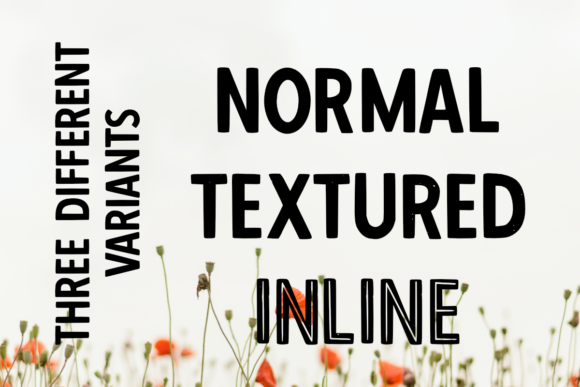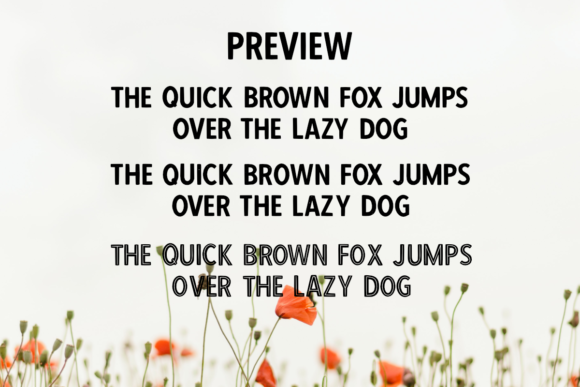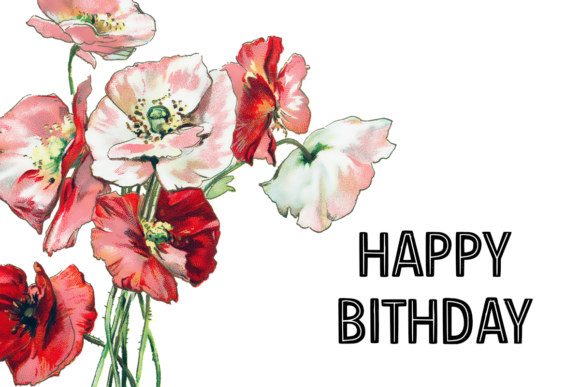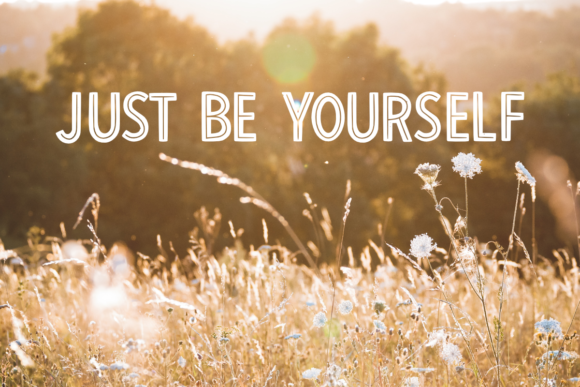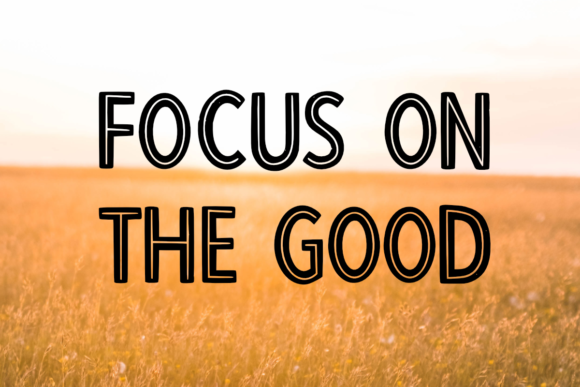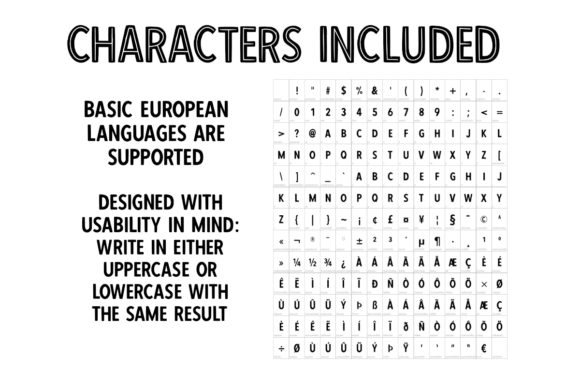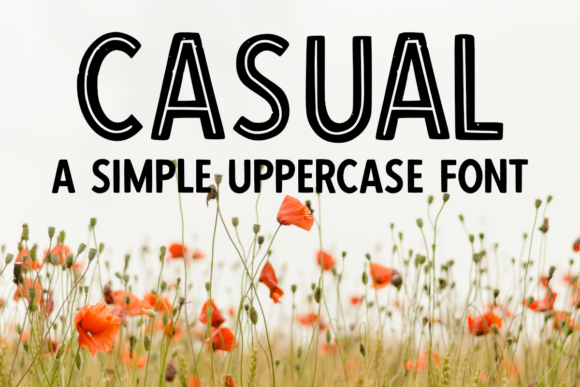
Casual Font: Elevate Your Designs with a Cool, Simple, and Adaptable Display Font
Are you tired of using the same old fonts in your designs? Look no further than Casual Font, a cool, simple, and adaptable display font that’s perfect for adding a touch of elegance to any project. Whether you’re a designer, crafter, or DIY enthusiast, Casual Font is an incredible asset to have in your font library.
The Versatility of Casual Font
One of the best things about Casual Font is its versatility. No matter the topic or theme of your project, this font will fit right in. From fashion and beauty to lifestyle and technology, Casual Font is adaptable and can be used in a variety of contexts. Its simple yet stylish design makes it perfect for headlines, titles, and other display text.
Why Choose Casual Font?
- Cool and modern design: Casual Font has a fresh and modern design that’s perfect for creating a stylish impression.
- Simple and easy to read: Despite its stylish design, Casual Font is easy to read and understand, making it perfect for use in a variety of contexts.
- Adaptable: Casual Font can be used in a variety of contexts, from digital displays to print materials.
- Elegant and sophisticated: Casual Font adds a touch of elegance and sophistication to any design, making it perfect for high-end brands and luxury products.
How to Use Casual Font
- Headlines and titles: Use Casual Font to create eye-catching headlines and titles that grab attention.
- Logos and branding: Casual Font is perfect for use in logos and branding materials, adding a touch of elegance and sophistication.
- Social media graphics: Use Casual Font to create stylish social media graphics that stand out from the crowd.
- Print materials: Casual Font can be used in a variety of print materials, from brochures and flyers to business cards and letterheads.
Tips for Pairing Casual Font with Other Fonts
- Pair with a sans-serif font: Pairing Casual Font with a sans-serif font, such as Arial or Helvetica, creates a clean and modern look.
- Pair with a script font: Pairing Casual Font with a script font, such as Pacifico or Great Vibes, adds a touch of elegance and sophistication.
- Experiment with different combinations: Don’t be afraid to experiment with different font combinations to find the one that works best for your design.
Casual Font is a cool, simple, and adaptable display font that’s perfect for adding a touch of elegance to any design project. Its versatility, modern design, and ease of use make it an incredible asset to have in your font library. Whether you’re a designer, crafter, or DIY enthusiast, Casual Font is sure to elevate your creations and help you stand out from the crowd.